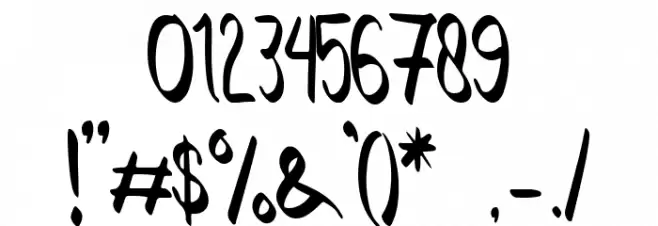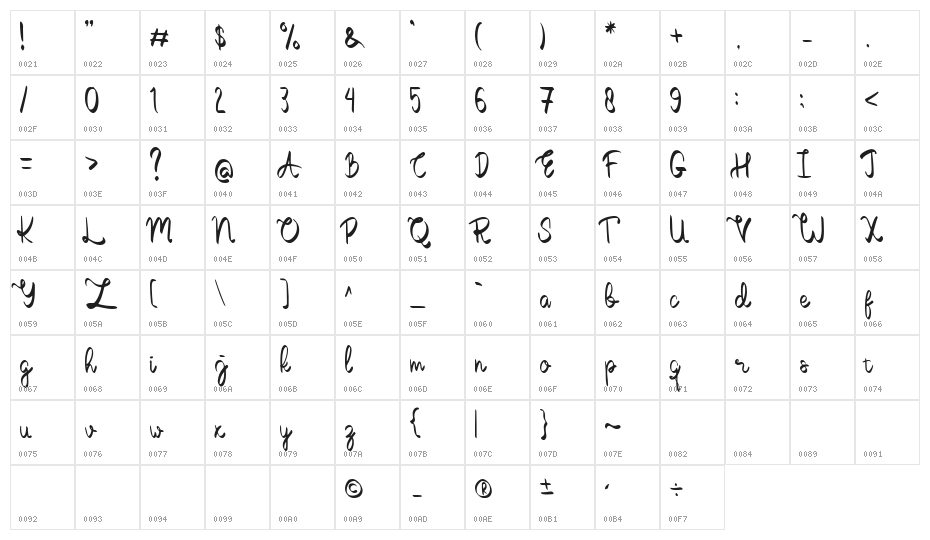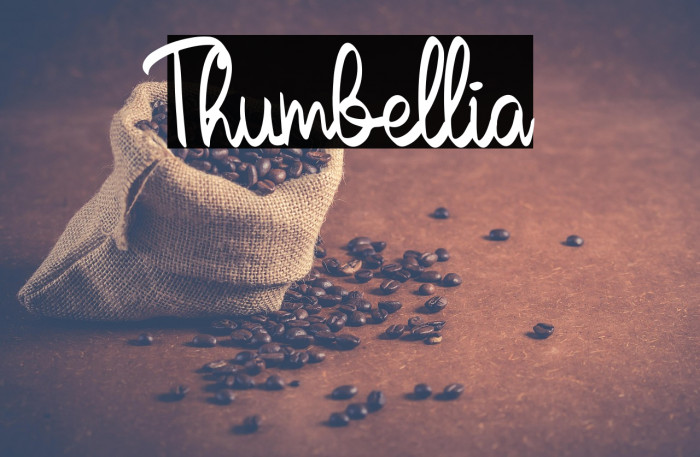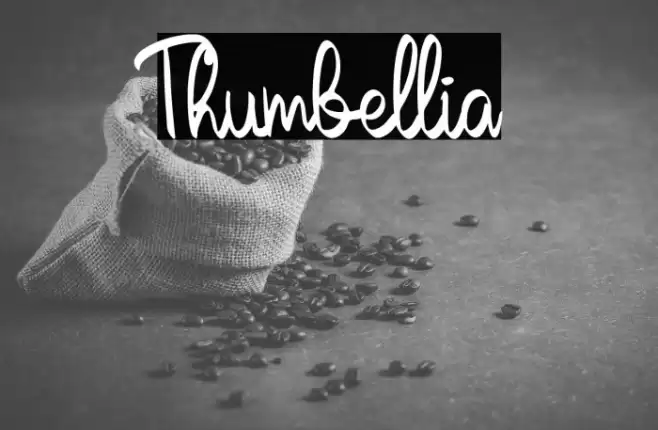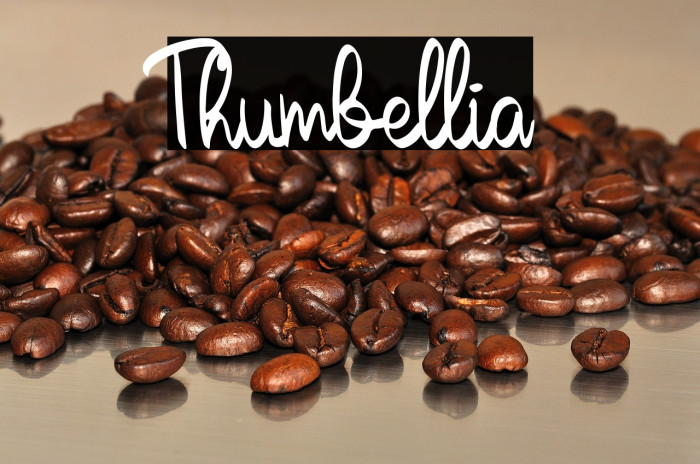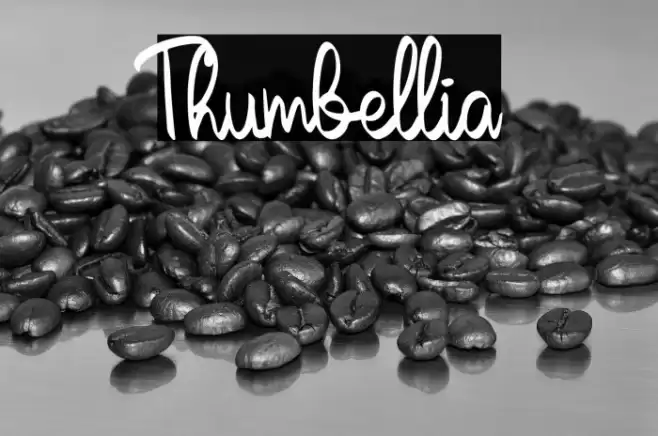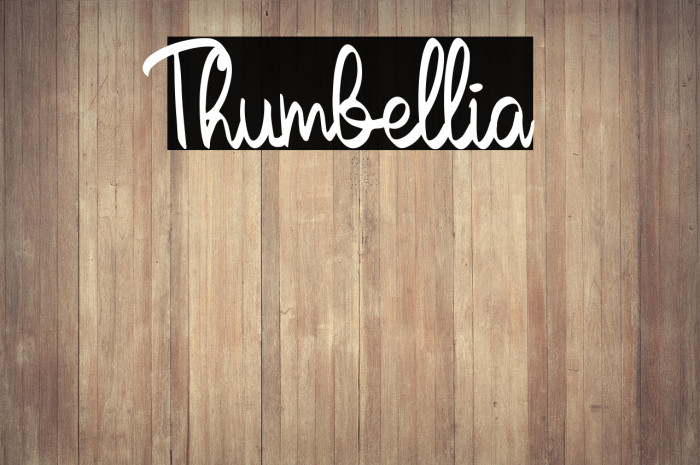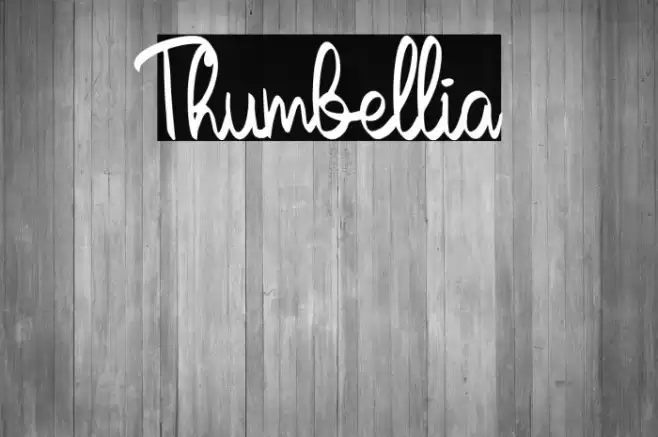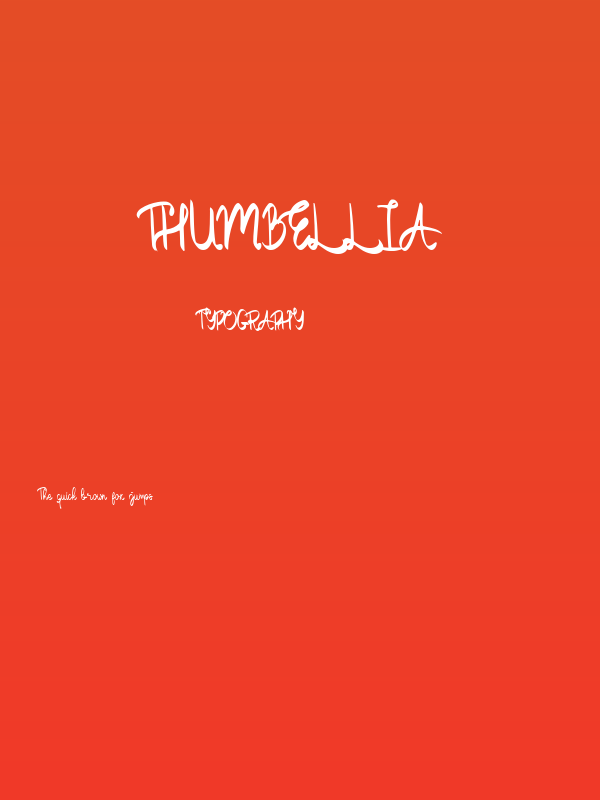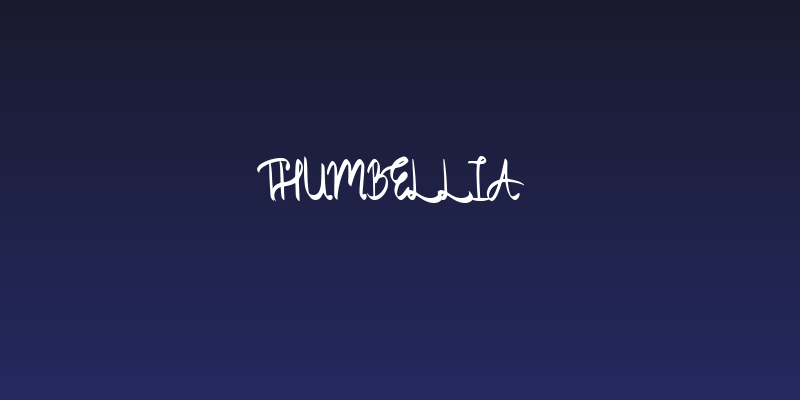
Thumbellia Font
Thumbellia Description
This font features a whimsical and playful script style, characterized by its fluid and dynamic strokes. The uppercase letters exhibit a bold presence with varying stroke thickness, while the lowercase letters maintain a consistent flow, enhancing readability. The numerals are distinct and maintain the playful essence of the font, making them suitable for creative displays. Special characters are uniquely styled, adding to the font's overall charm. The font's design is reminiscent of handwritten calligraphy, with a modern twist that makes it suitable for a variety of creative applications.
| Proposed Projects | Ideal for greeting cards, invitations, playful branding, and creative posters. |